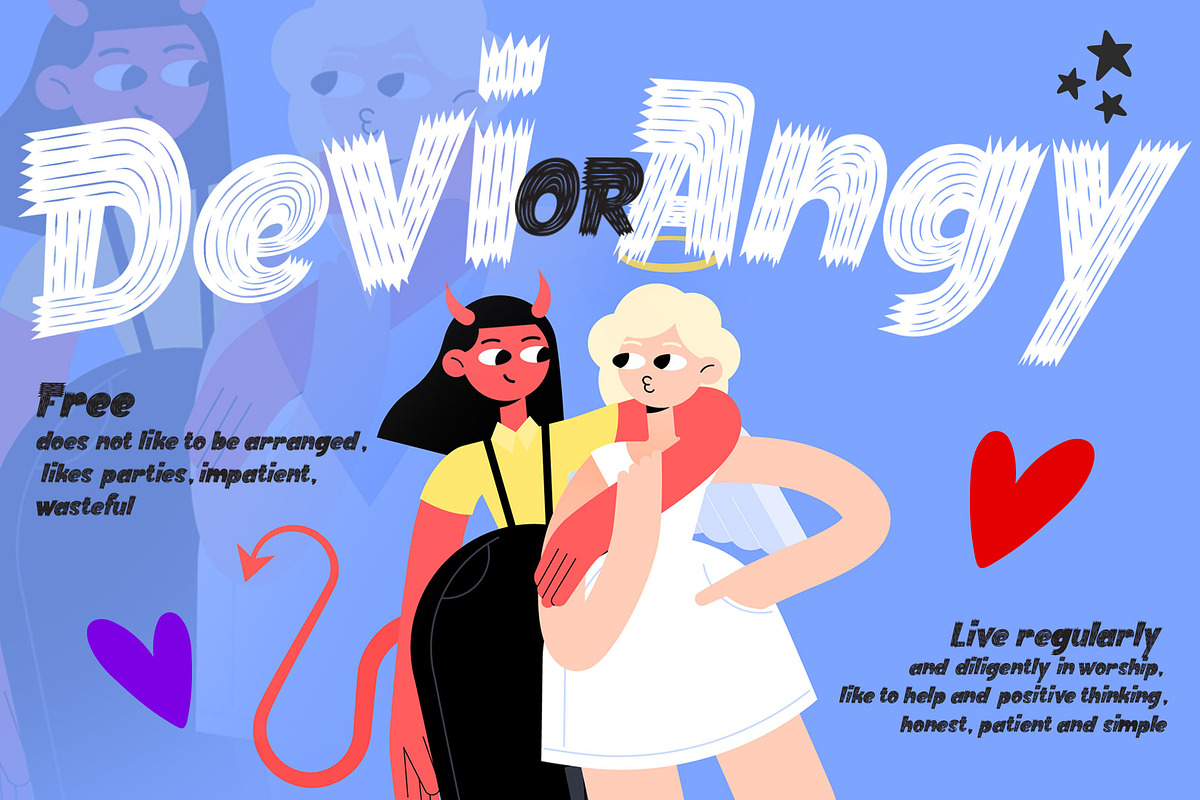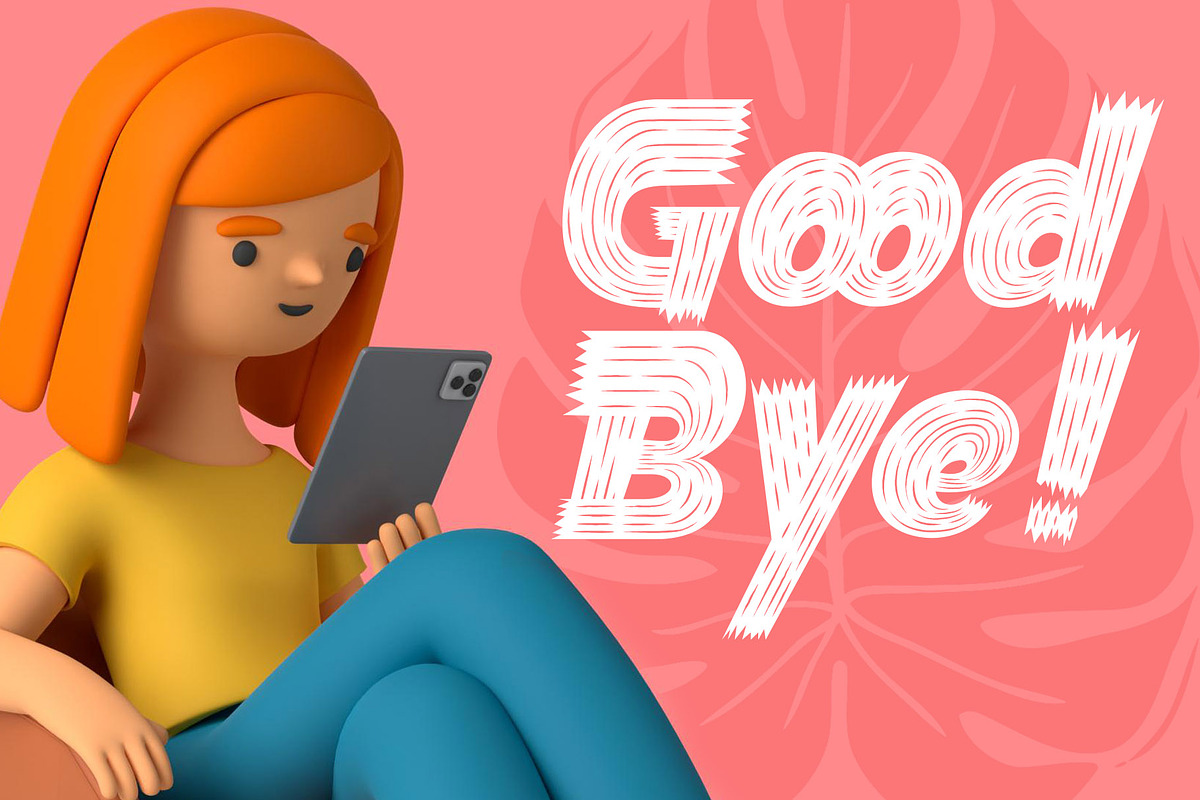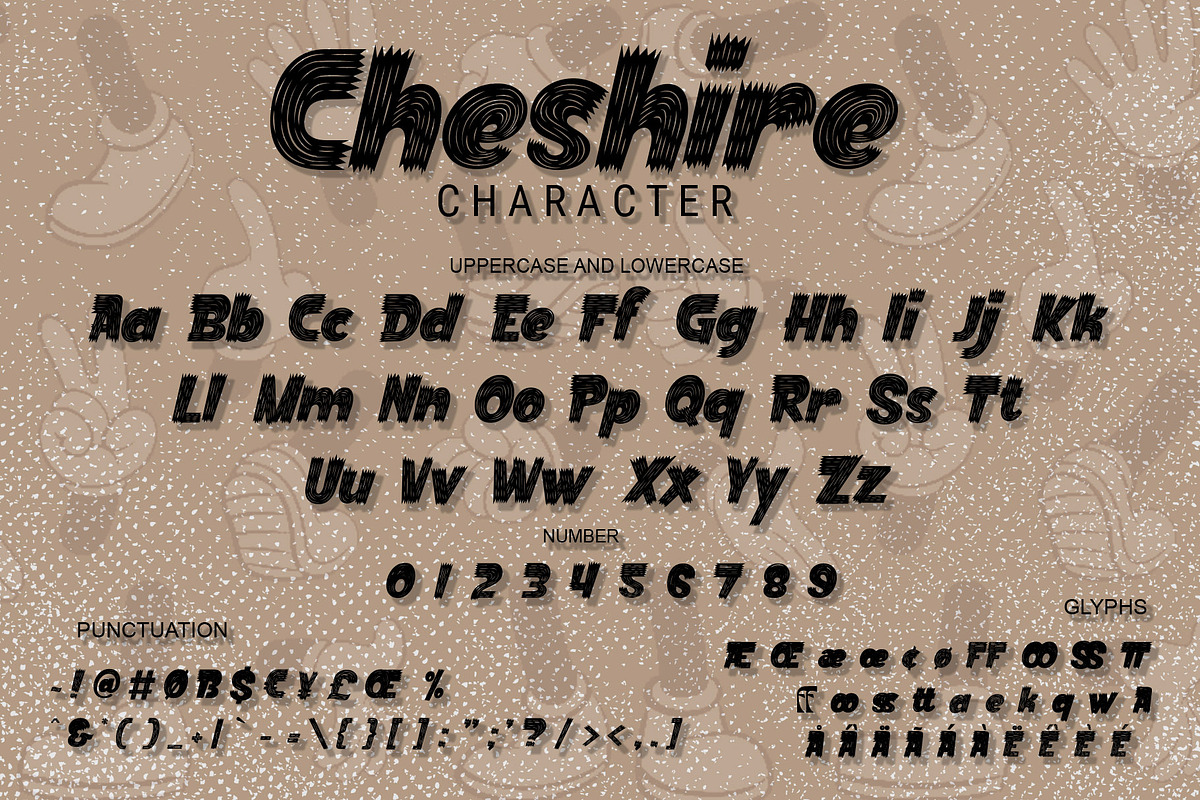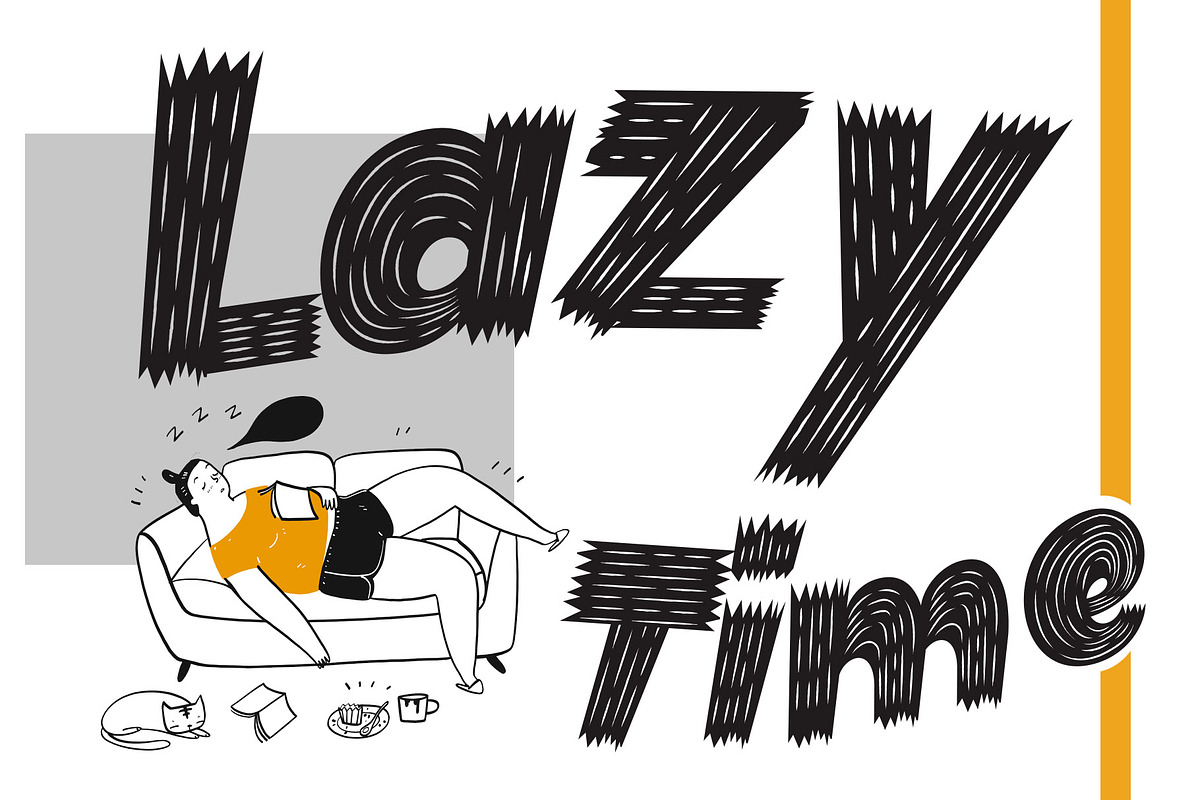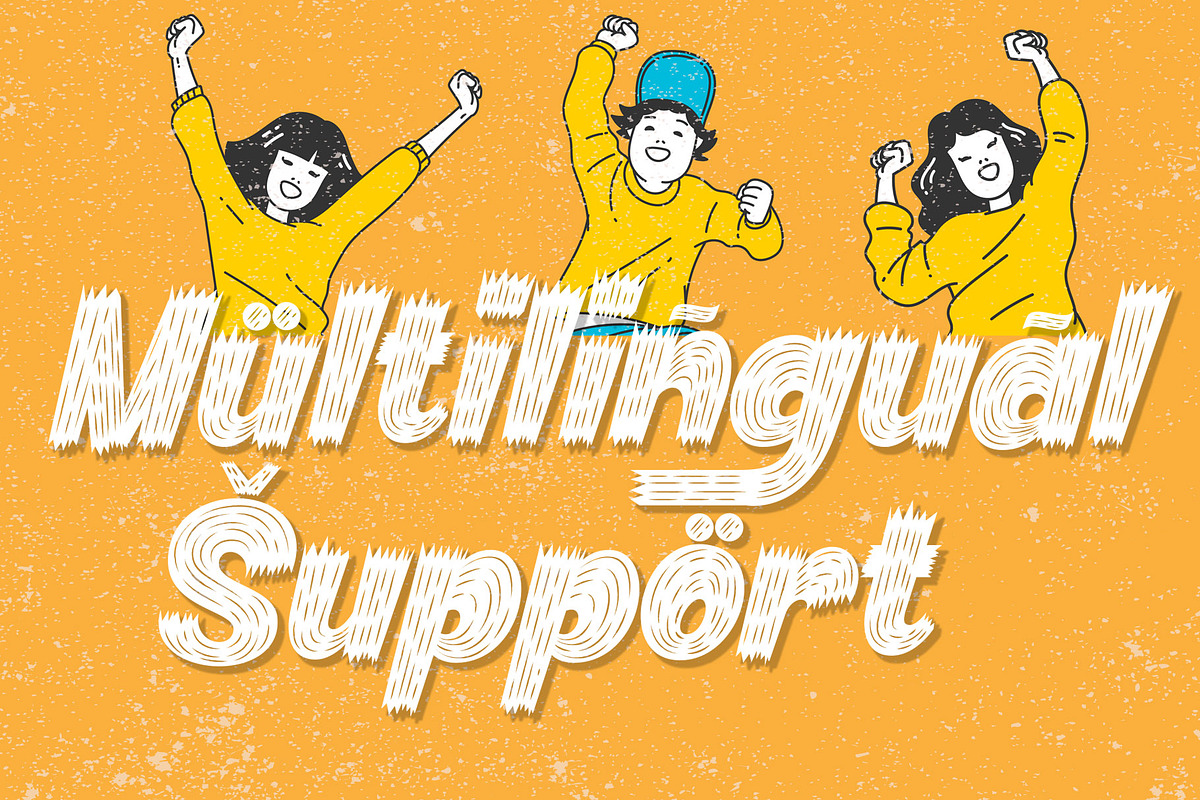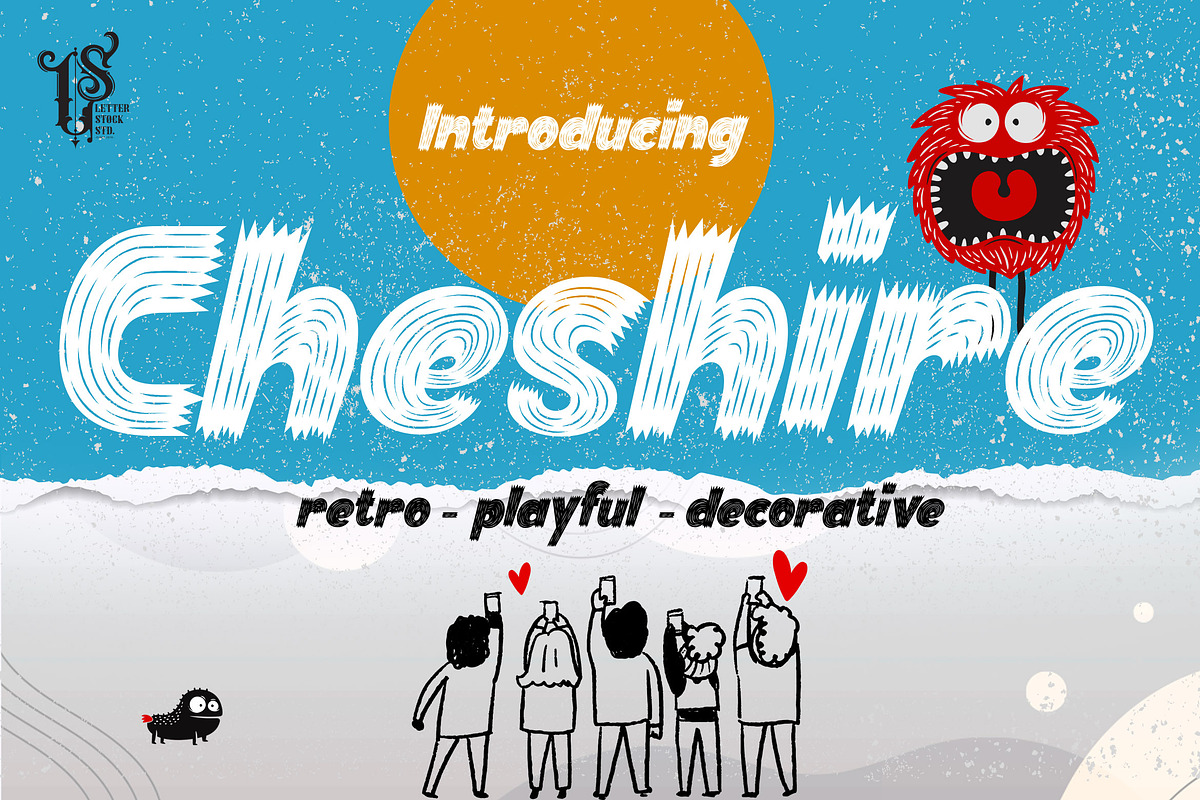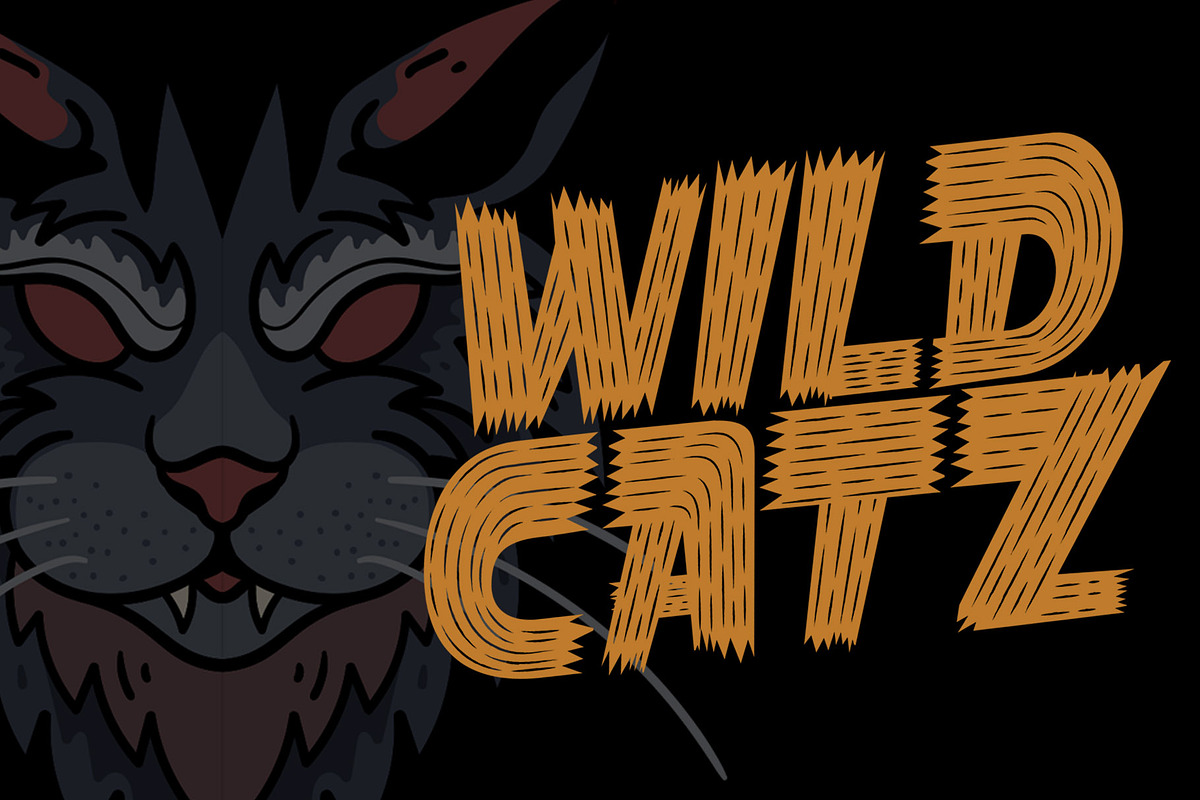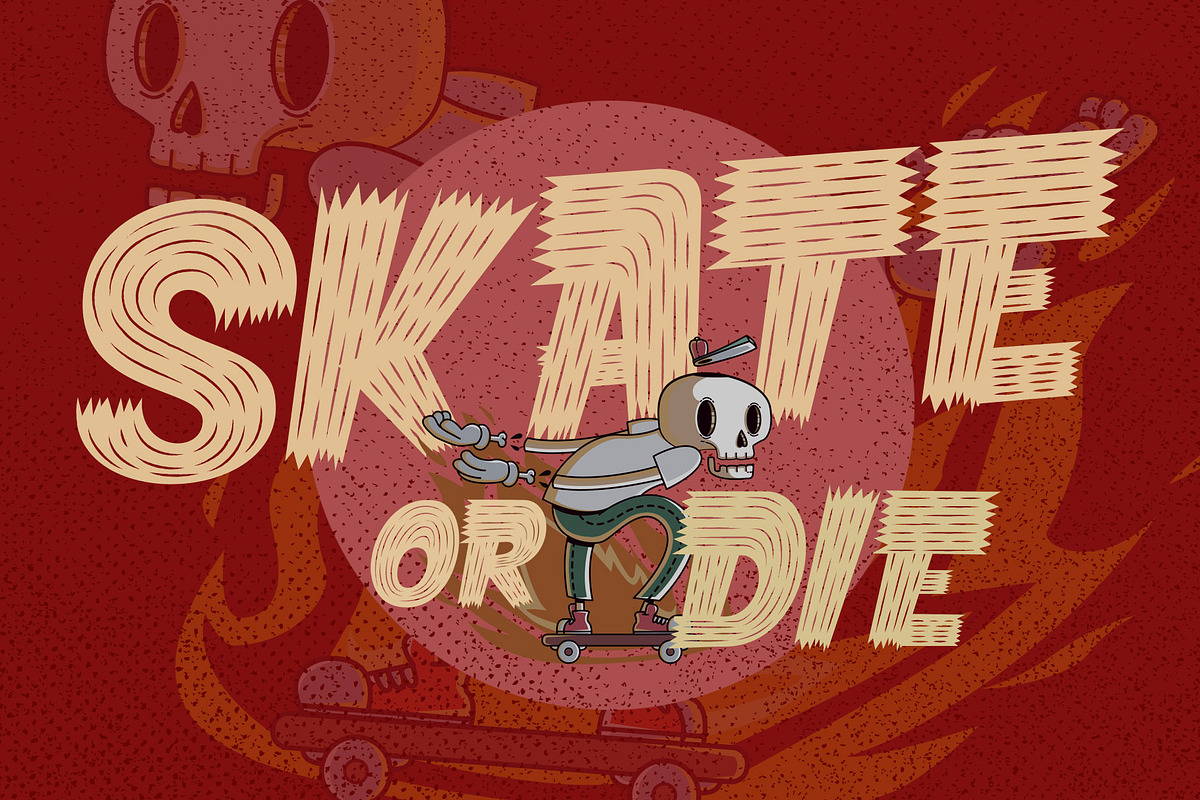
Cheshire
This pair was inspired by poster design that i saw on street, It was crafted by hand specially to add natural handmade feeling in its brand identity than i make it clean with pentool.
We improve with handmade to make a retro playful feel, this font is bold so it can look strong if you use it for branding or even title for your poster design with retro playful decorative style.
Cheshire font has 175 character set included Cheshire Font is very good looking in retro retro playful decorative logotype, labels, t-shirt prints, product packaging, invitations, advertising and others.
If you looking for a retro playful font, this item is a great choice to make your design authentic and unique.